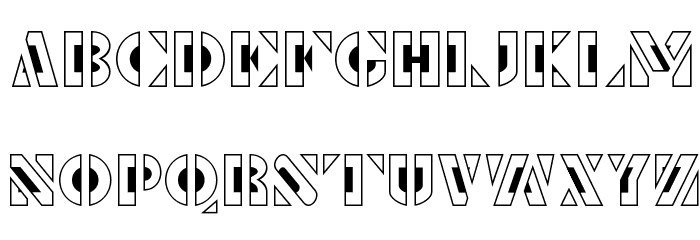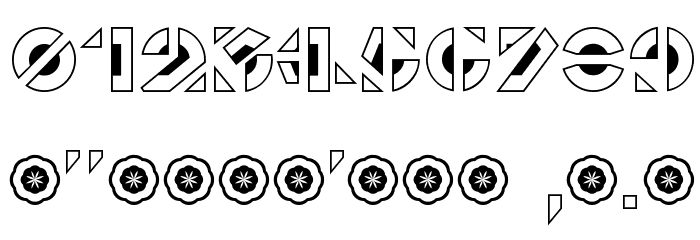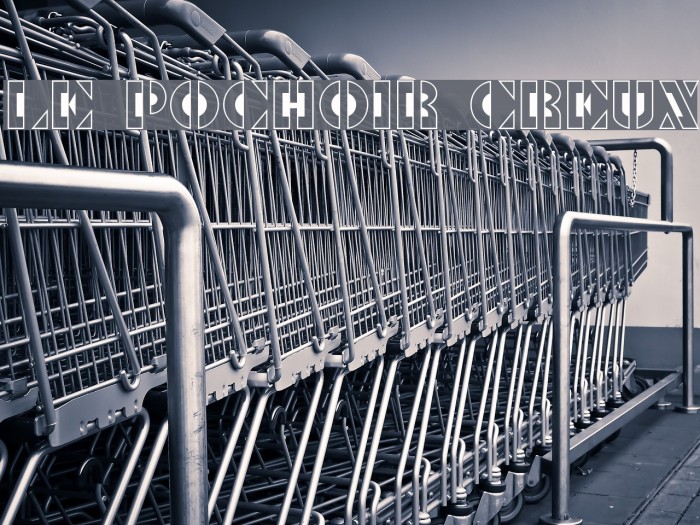
Le Pochoir Creux Font
This font features a unique stencil-inspired design with geometric cutouts that create a striking visual effect. The uppercase and lowercase letters maintain a consistent style, characterized by sharp angles and bold lines. The numbers and special characters follow the same design principles, ensuring a cohesive look across all elements. The font's distinct appearance makes it ideal for projects that require a modern and edgy aesthetic, while the geometric shapes add a touch of sophistication.
A geometric stencil-inspired font with bold lines and sharp angles.
- Proposed Projects: Ideal for branding, posters, and modern art projects that require a bold and distinctive look.